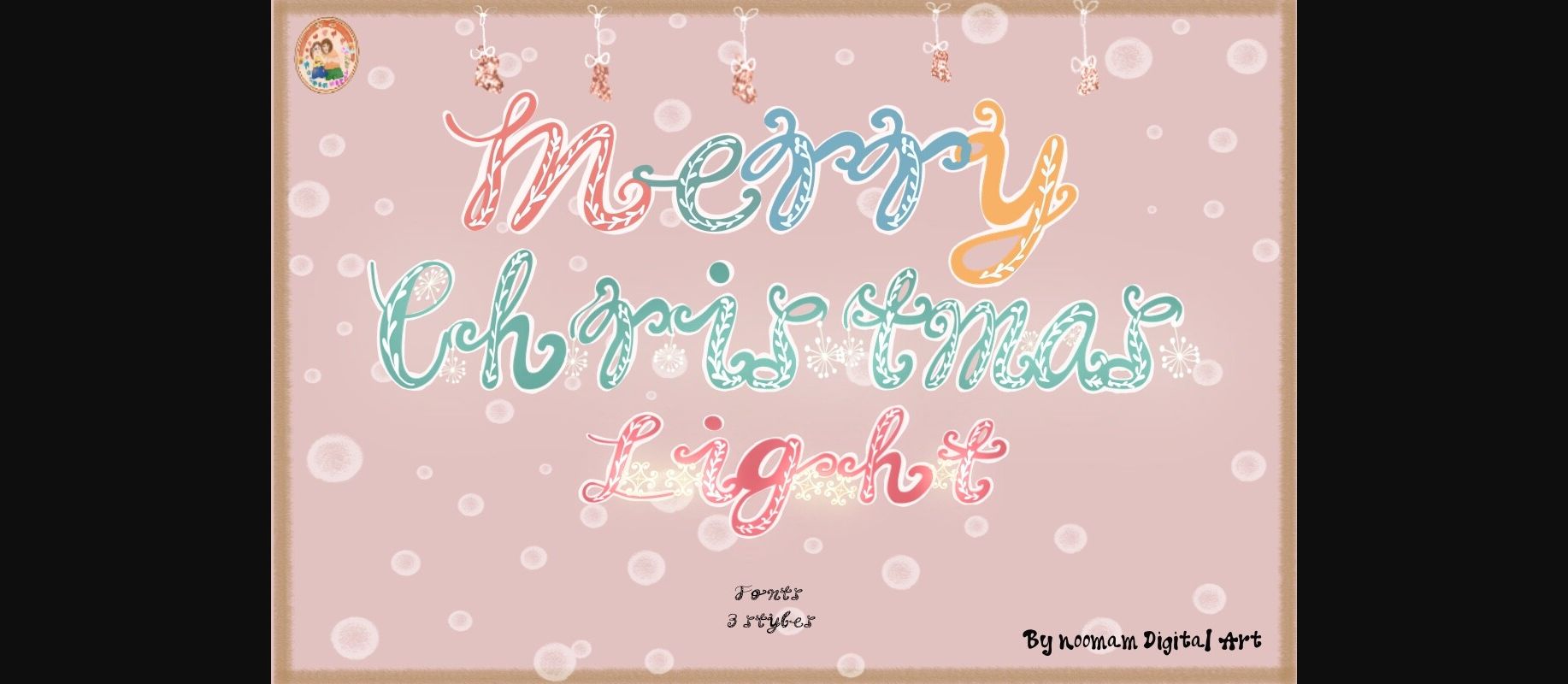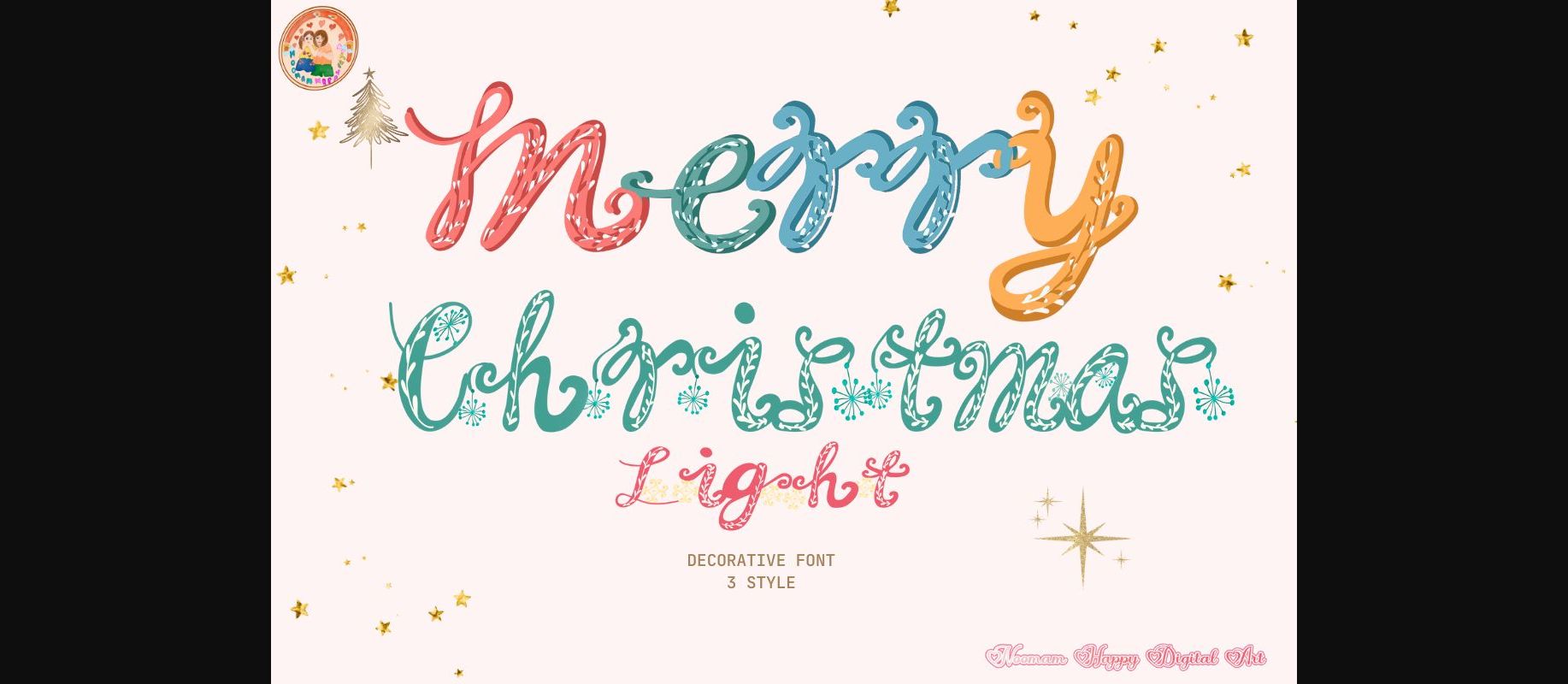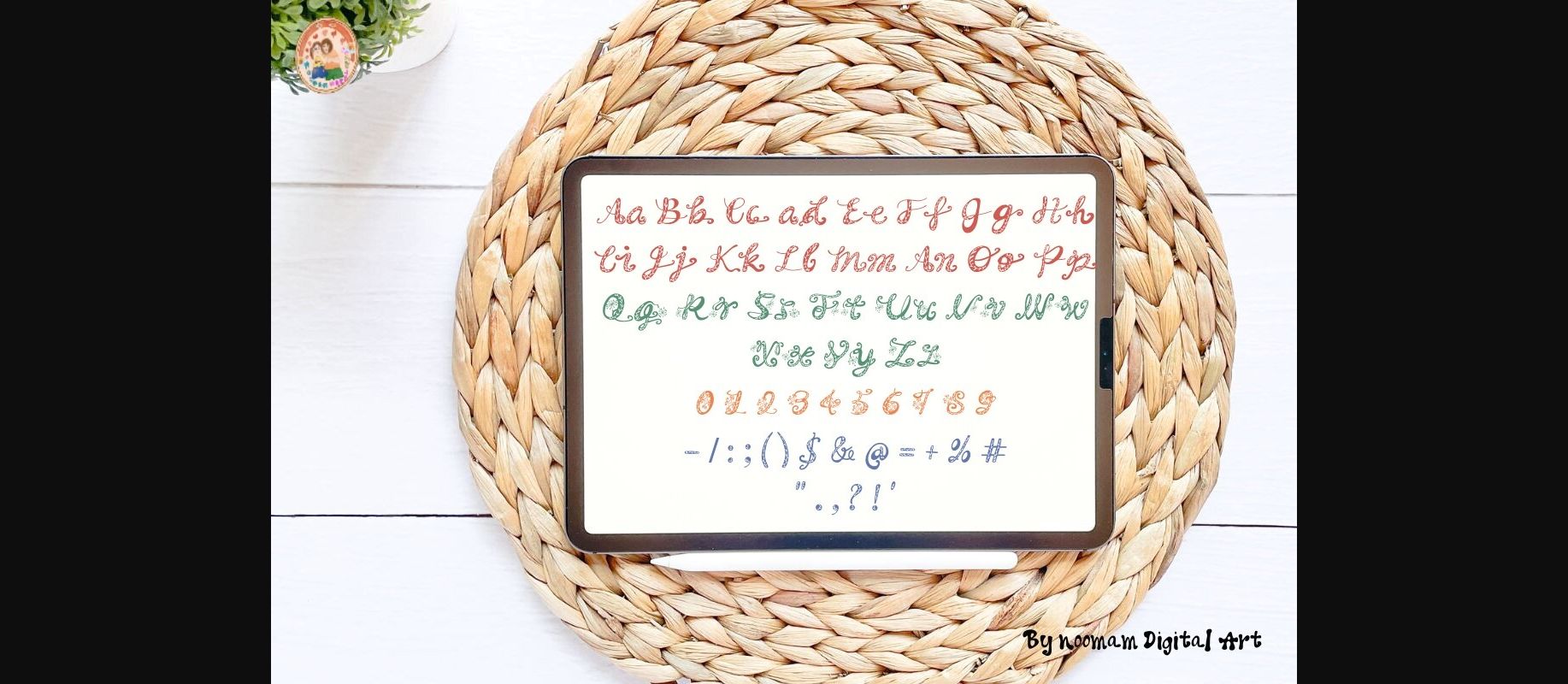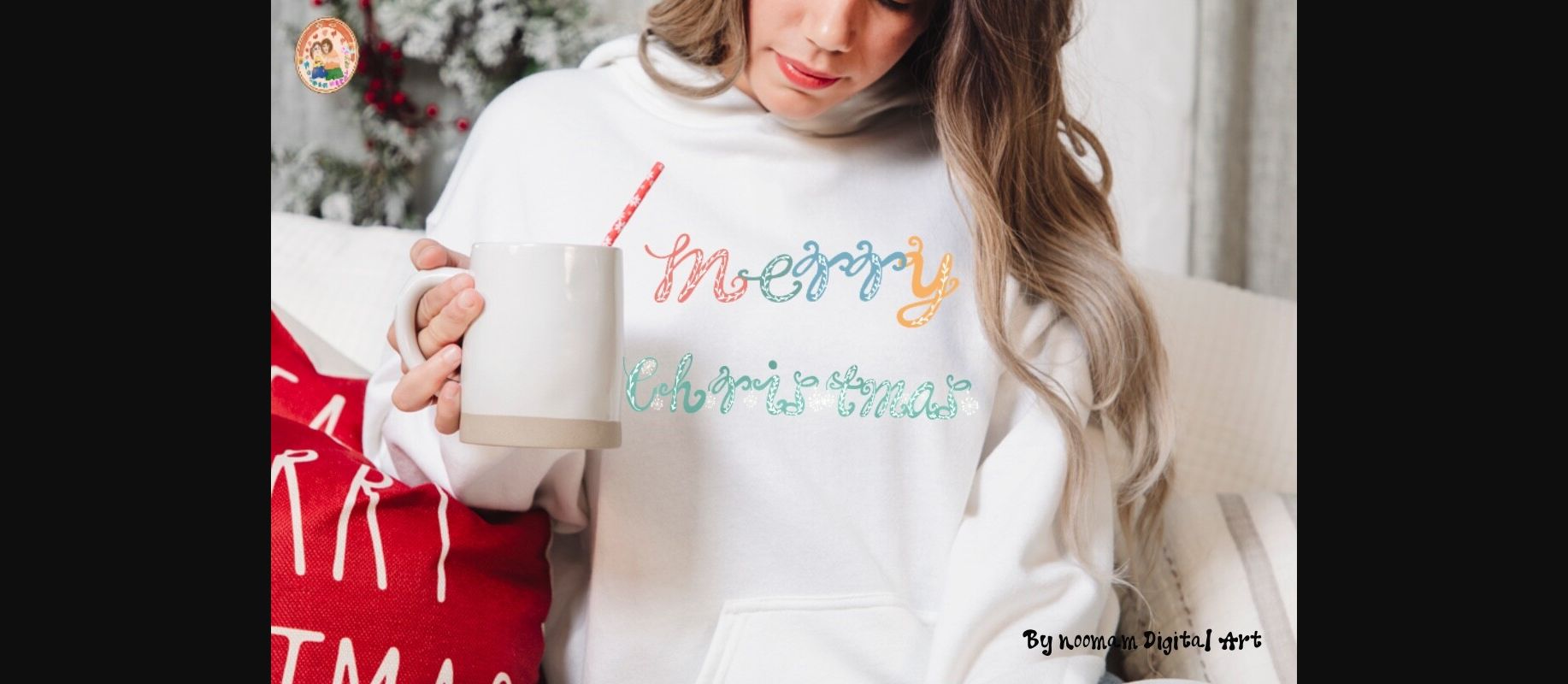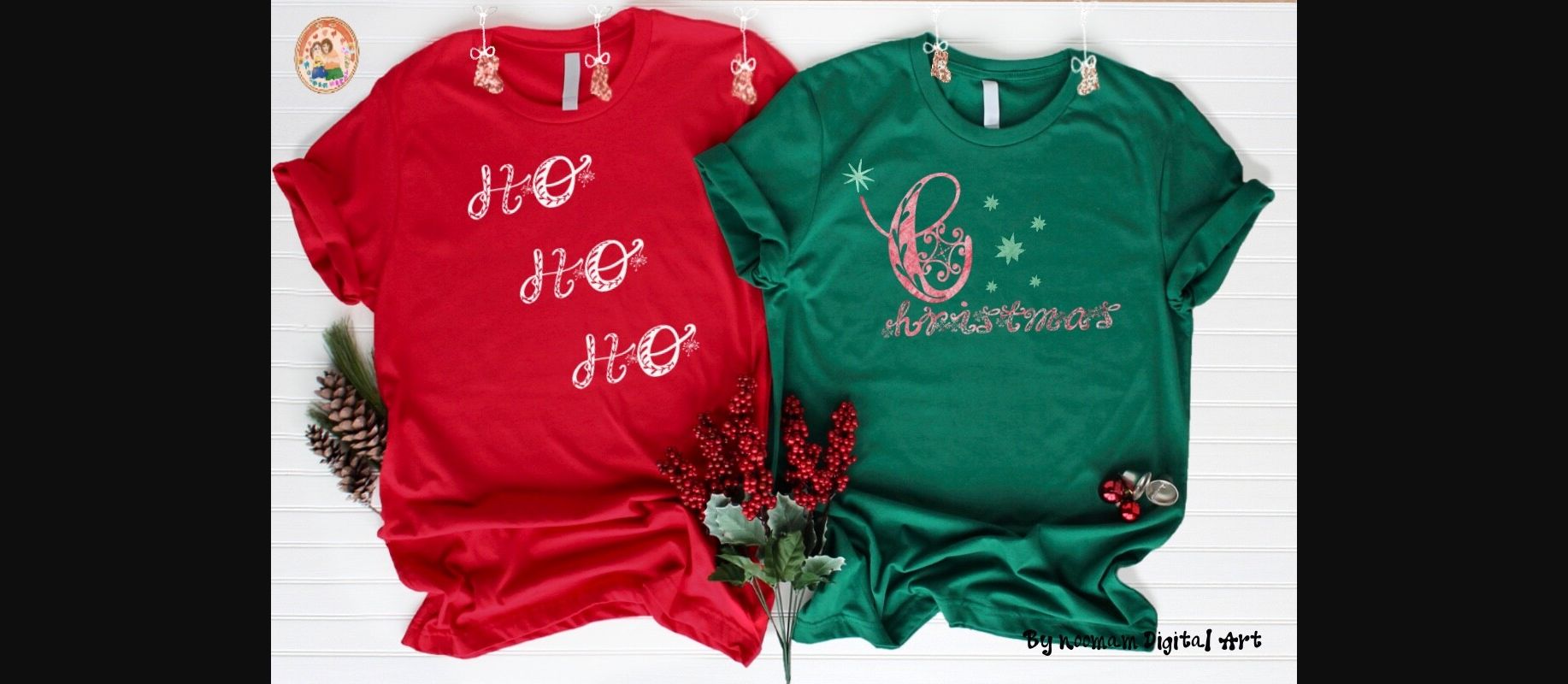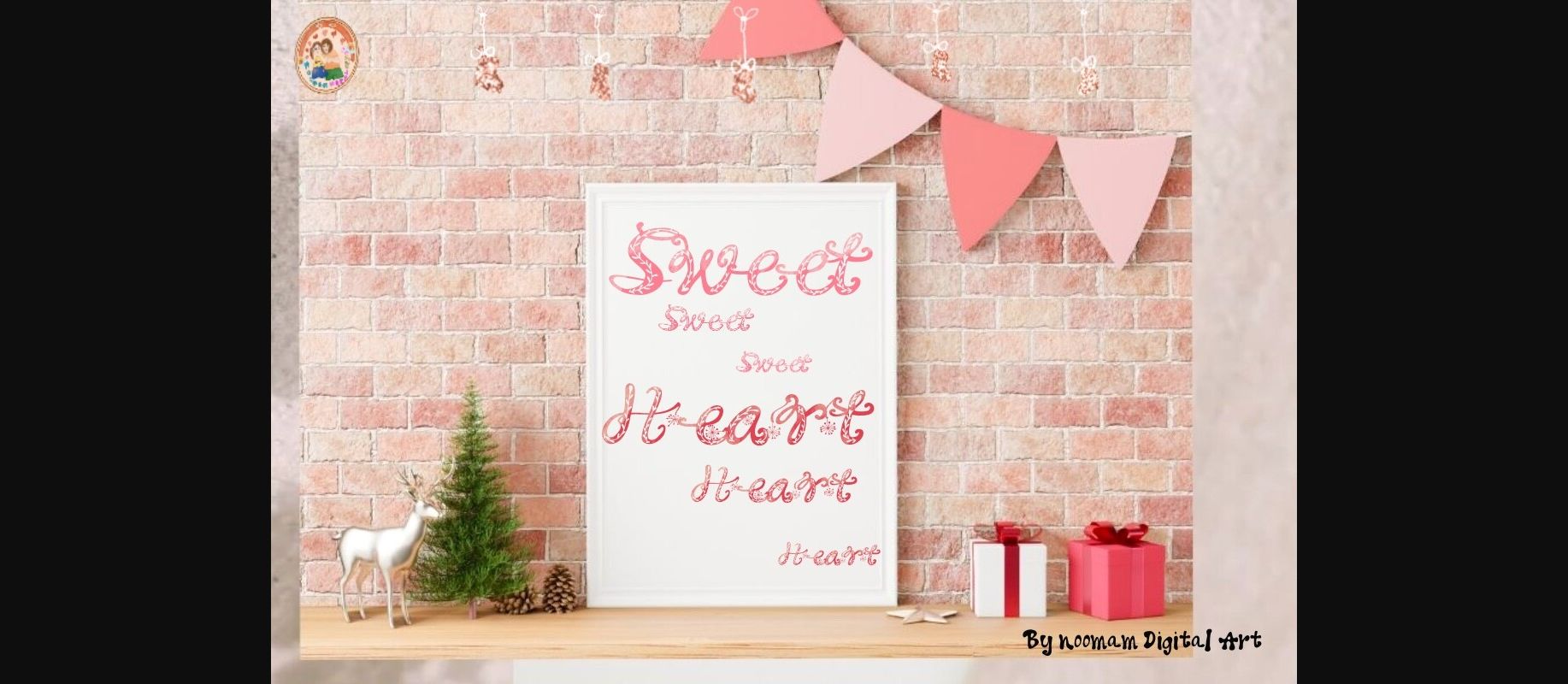
Merry Christmas Light Font
About Merry Christmas Light Font
Merry Christmas Light Decorative font is a Beautiful bright stylish font. Is suitable for both professional-looking projects such as branding designs, labels, websites, and business cards as well as casual designs like packaging, posters, flyers, quotes, social media posts, invitations, and special occasions cards.